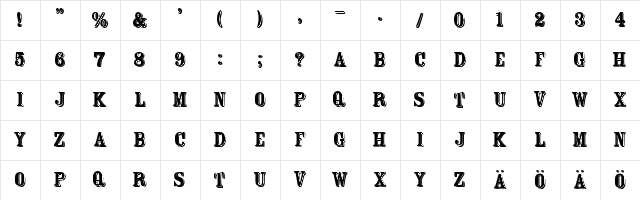
FT Rosecube normal
Design Context for FT Rosecube
FT Rosecube is a composed and adaptable typeface that performs quietly and consistently across a wide range of design contexts.
Pro Tip: Use FT Rosecube in both headline and body roles to test its range before committing to a single application.